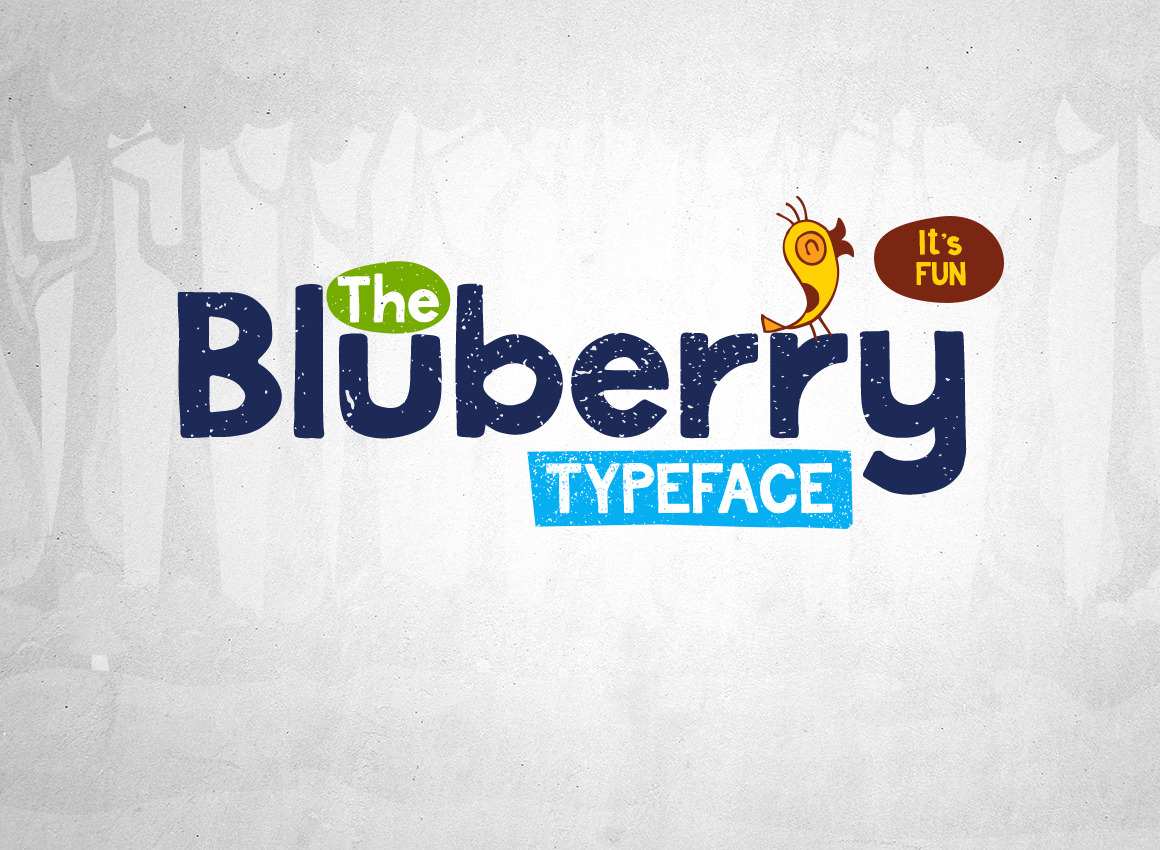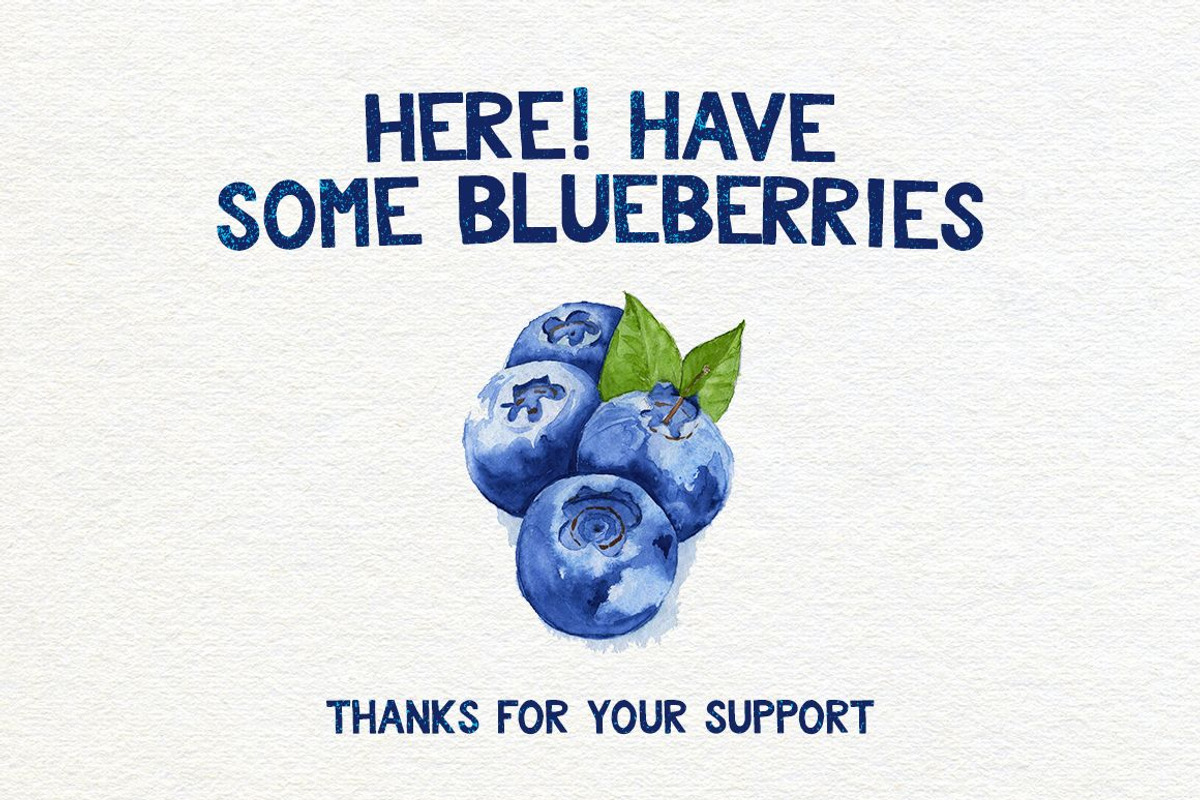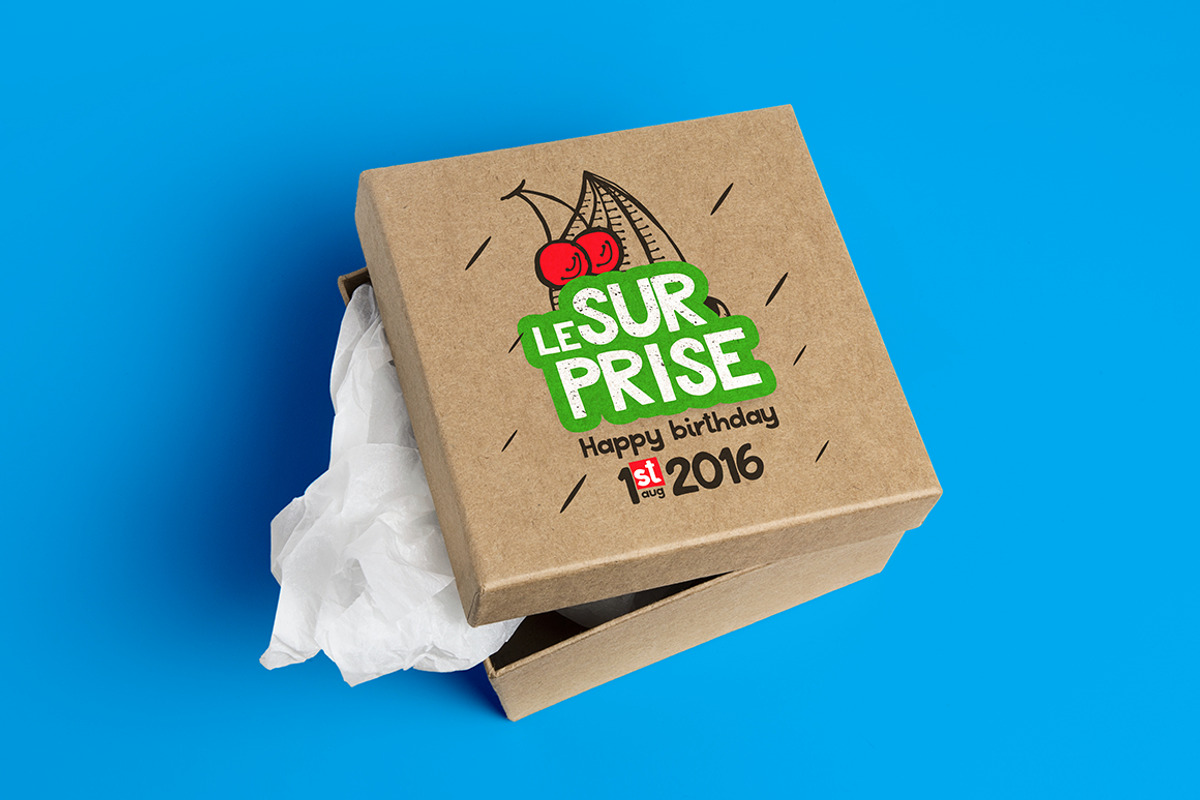
Blueberry Typeface
Hey! my name is Berry aka BluBerry. I wanna make your designs happy.
Blueberry has
- Normal style (fully Western European with 77 new glyphs)
- Italic style
- Outlined style
- Grunge style
- Shadow style
- 6 textures...your type
- Uppercase, numerals, and punctuation